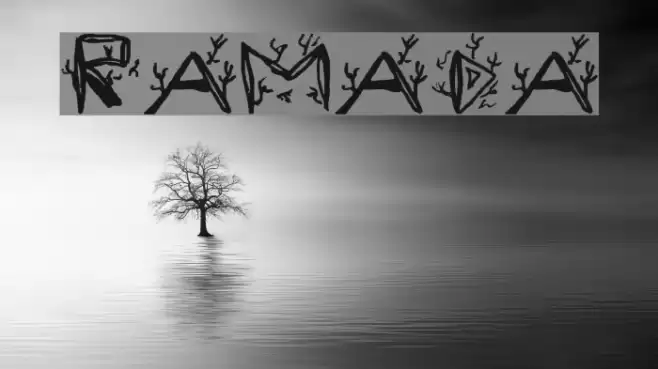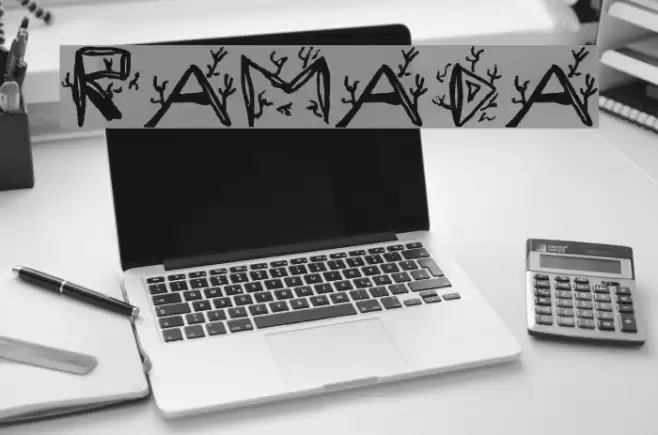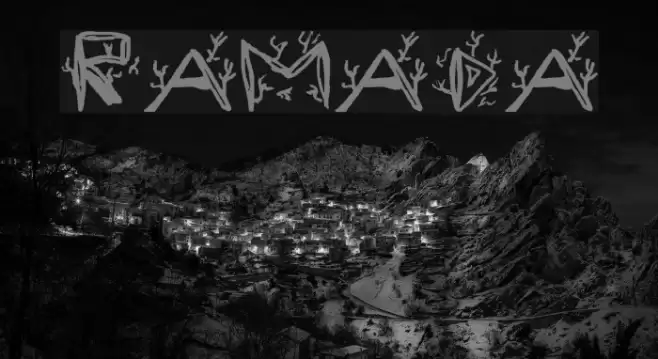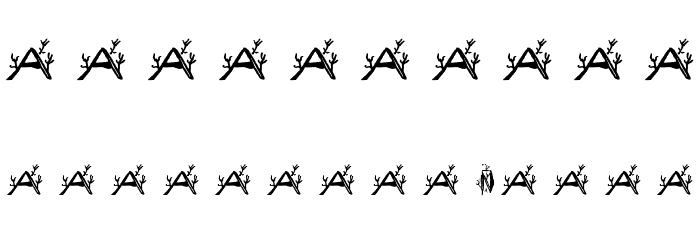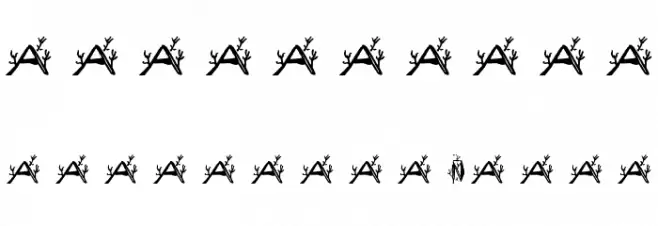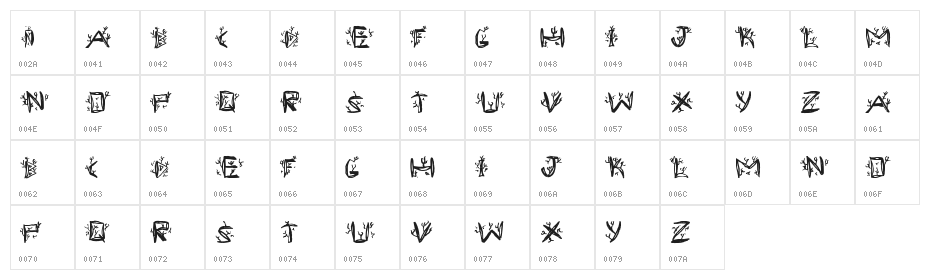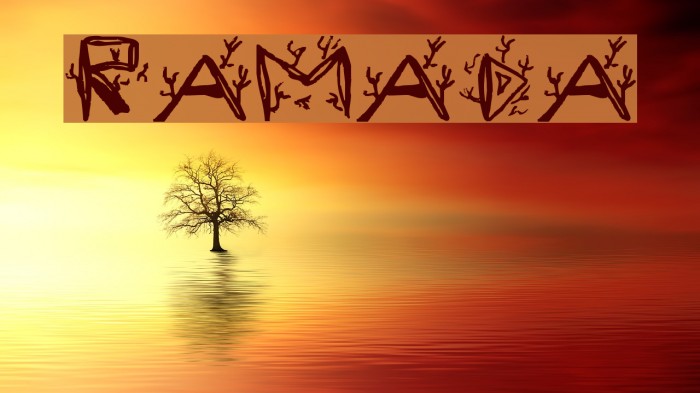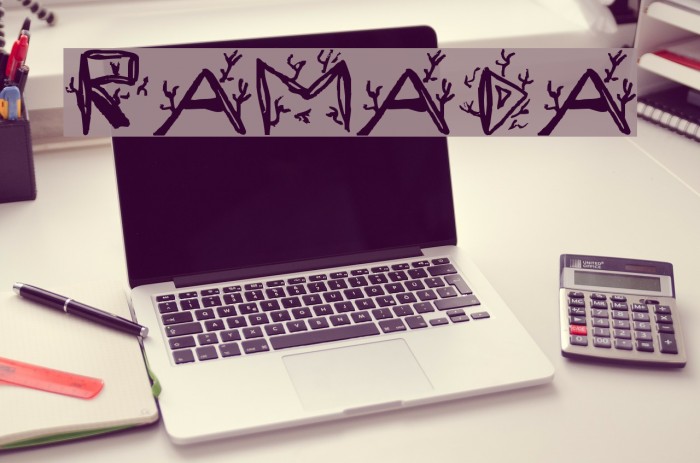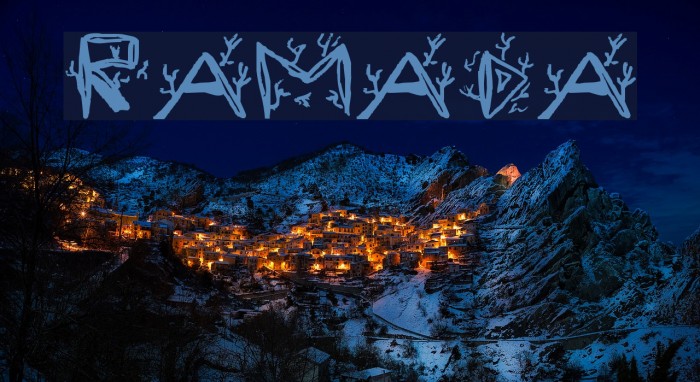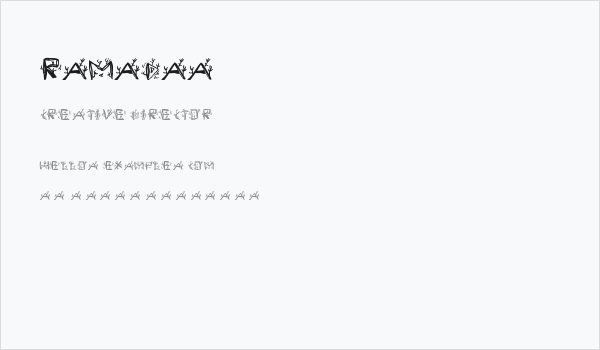
Ramada1 Font
Ramada1 Description
This font features a unique and decorative style, with each character adorned with intricate branch-like embellishments. The design evokes a natural, organic feel, reminiscent of tree branches or vines intertwining with the letters. The characters maintain a consistent structure, ensuring readability while offering a distinct artistic flair. This font is particularly striking in larger sizes, where the detailed elements can be fully appreciated. It combines a sense of whimsy with a touch of elegance, making it suitable for creative and nature-themed projects.
A decorative font with branch-like embellishments on each character from Decorative fonts.